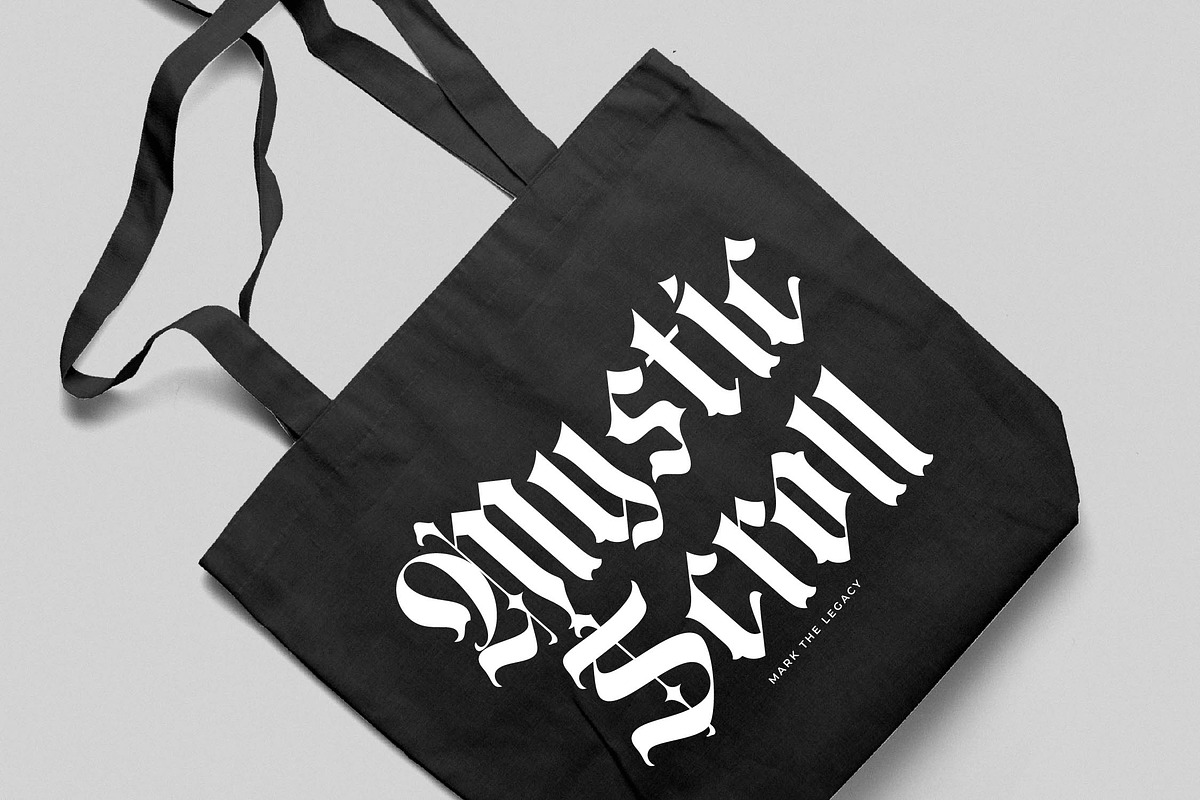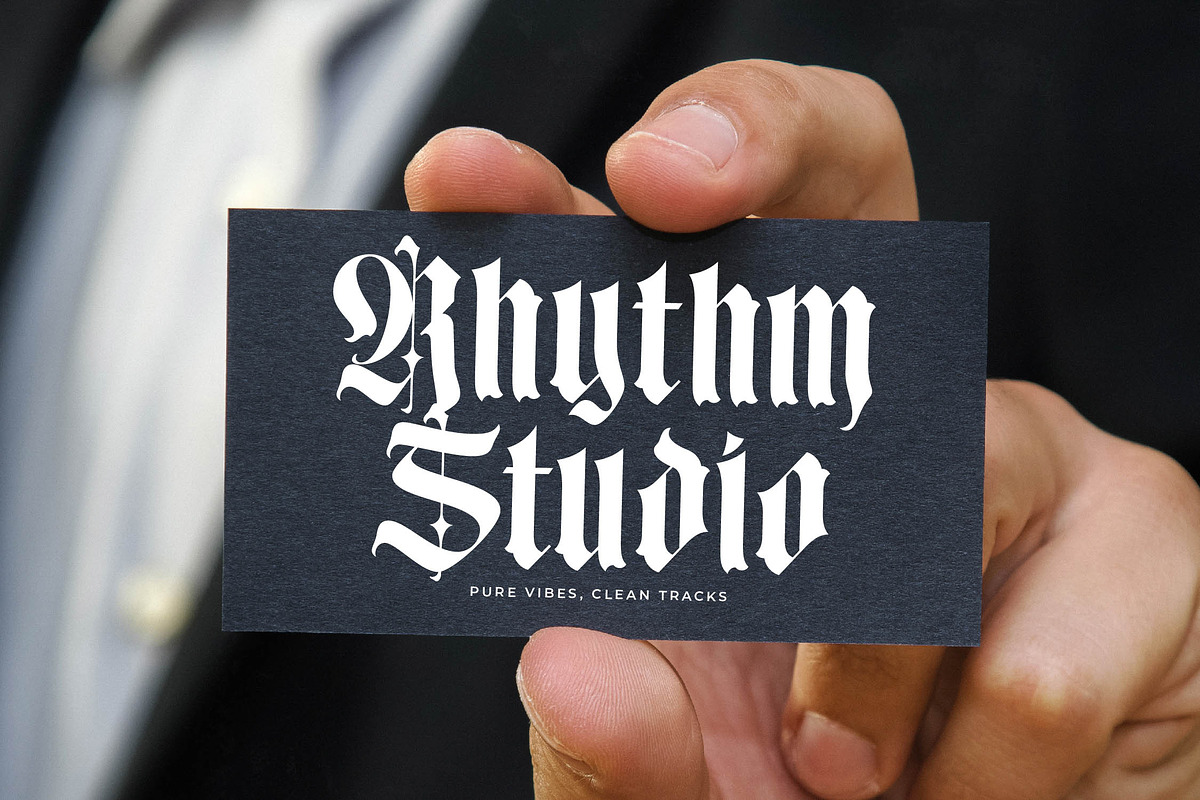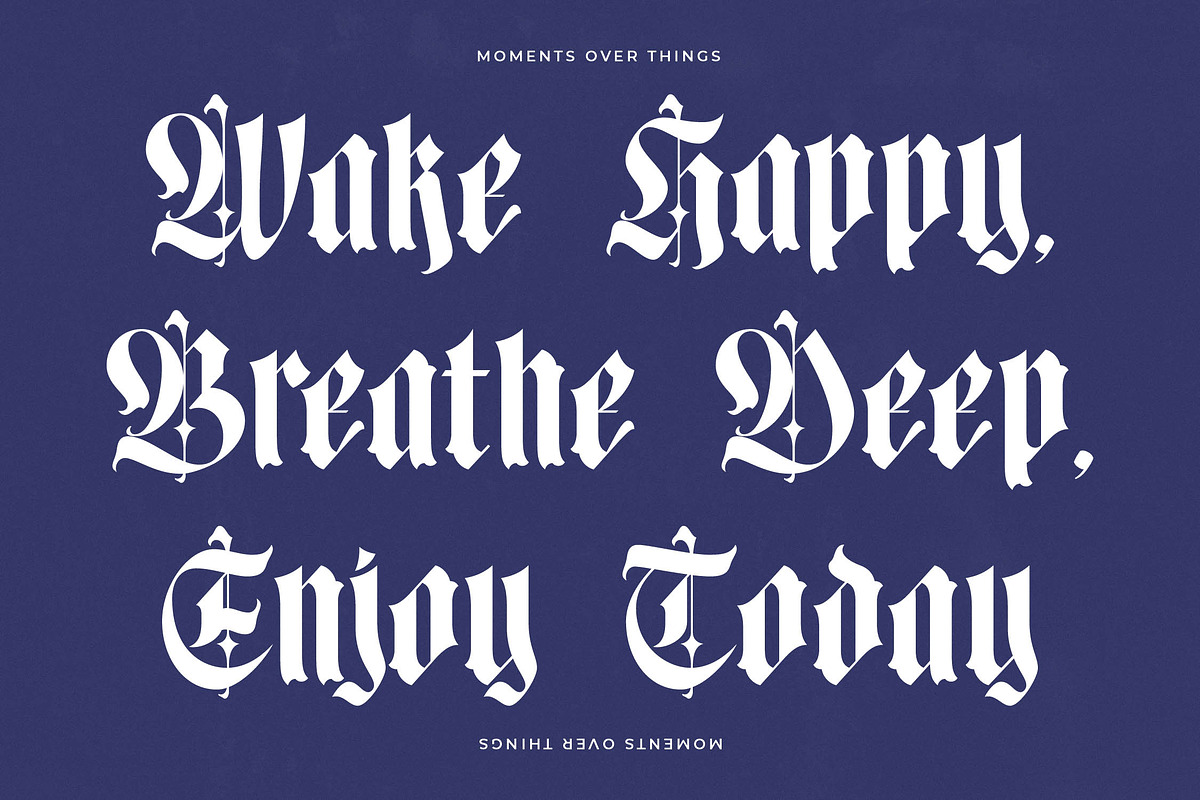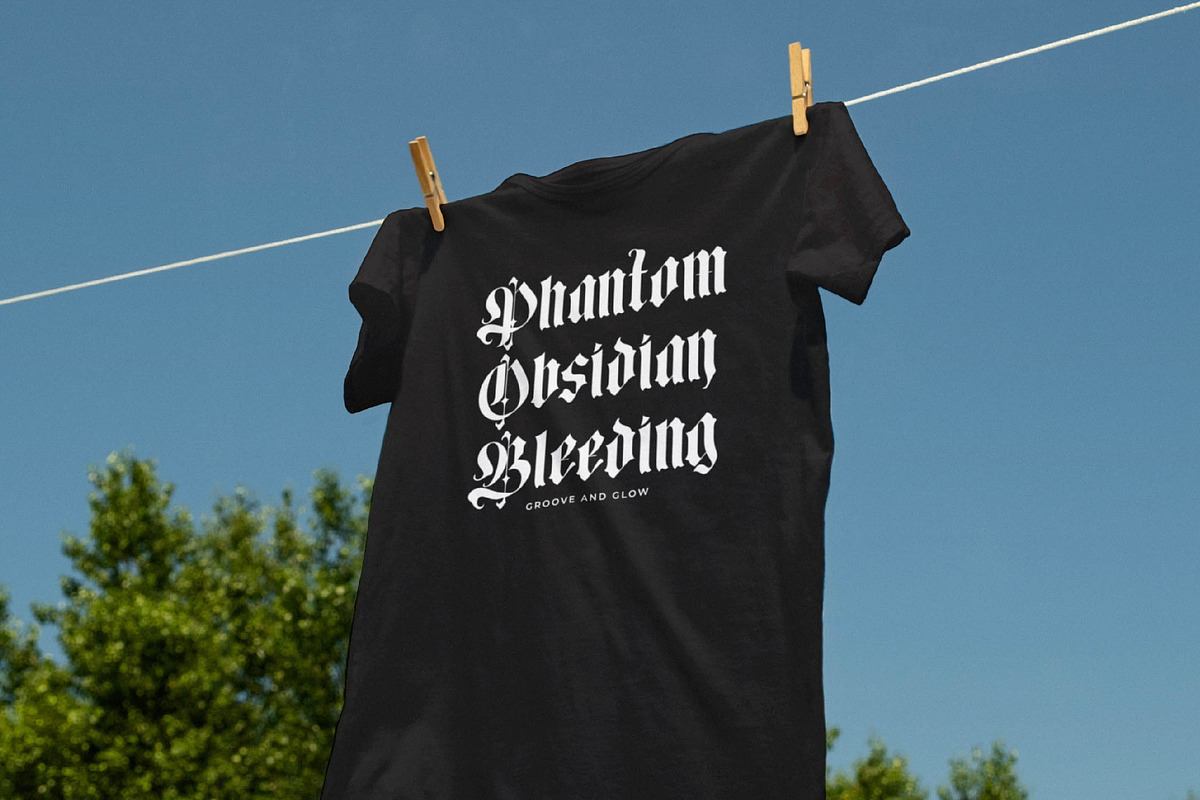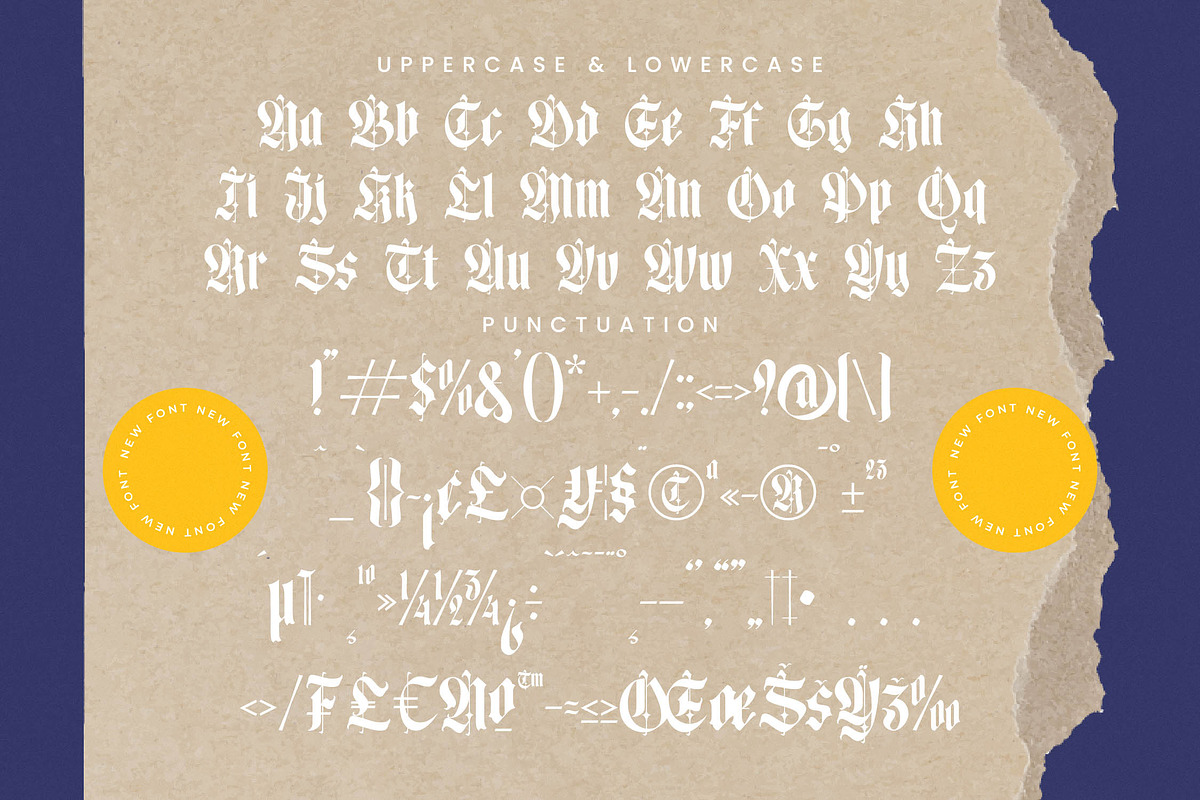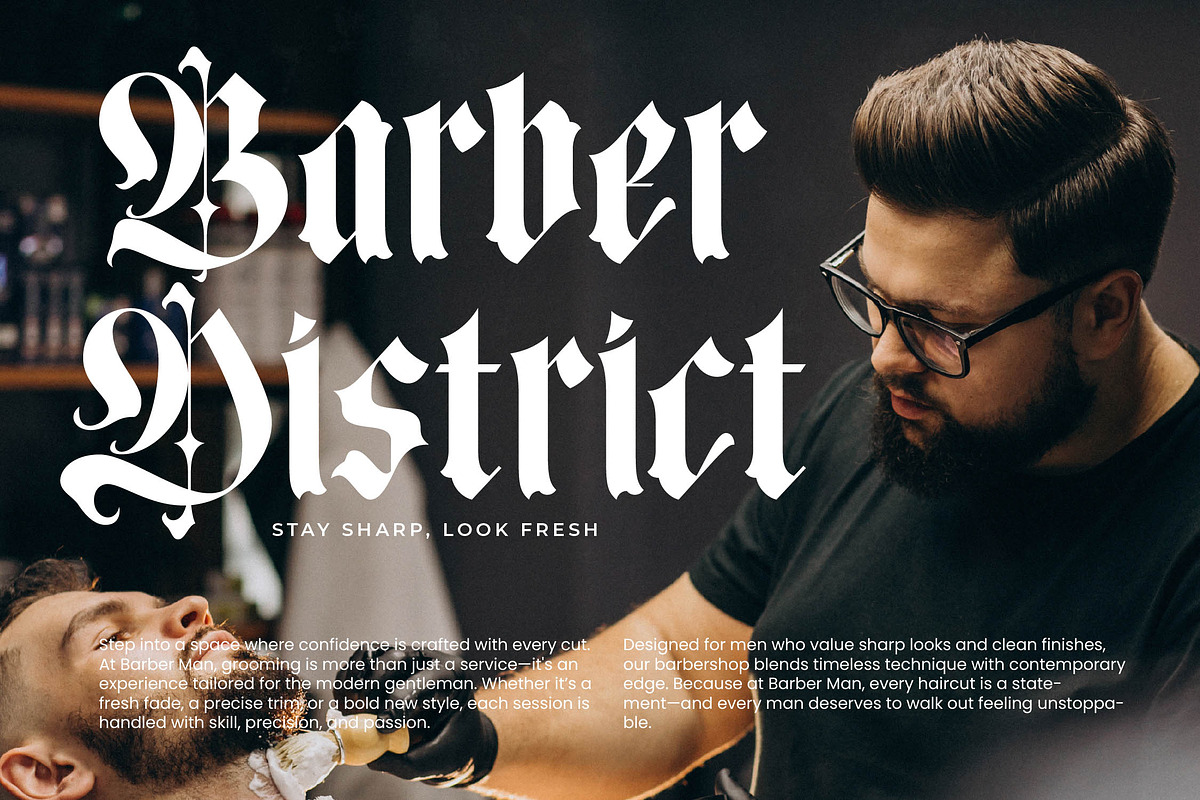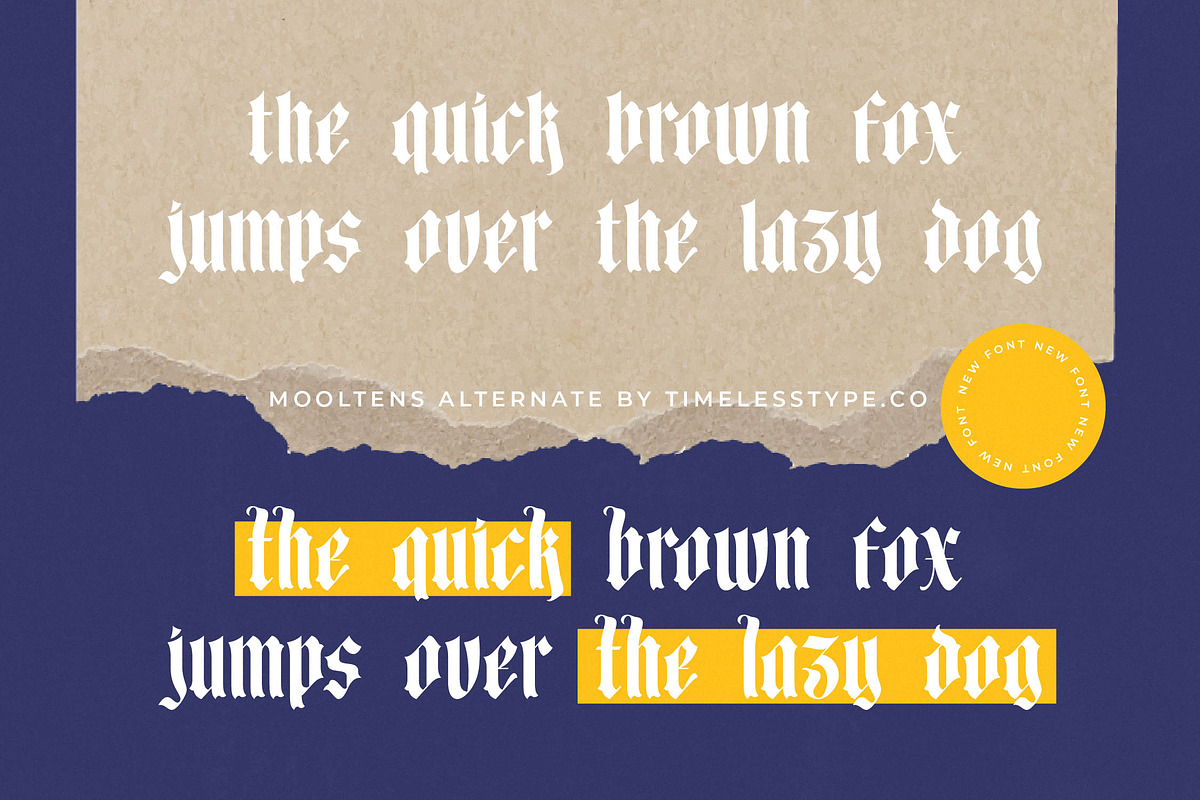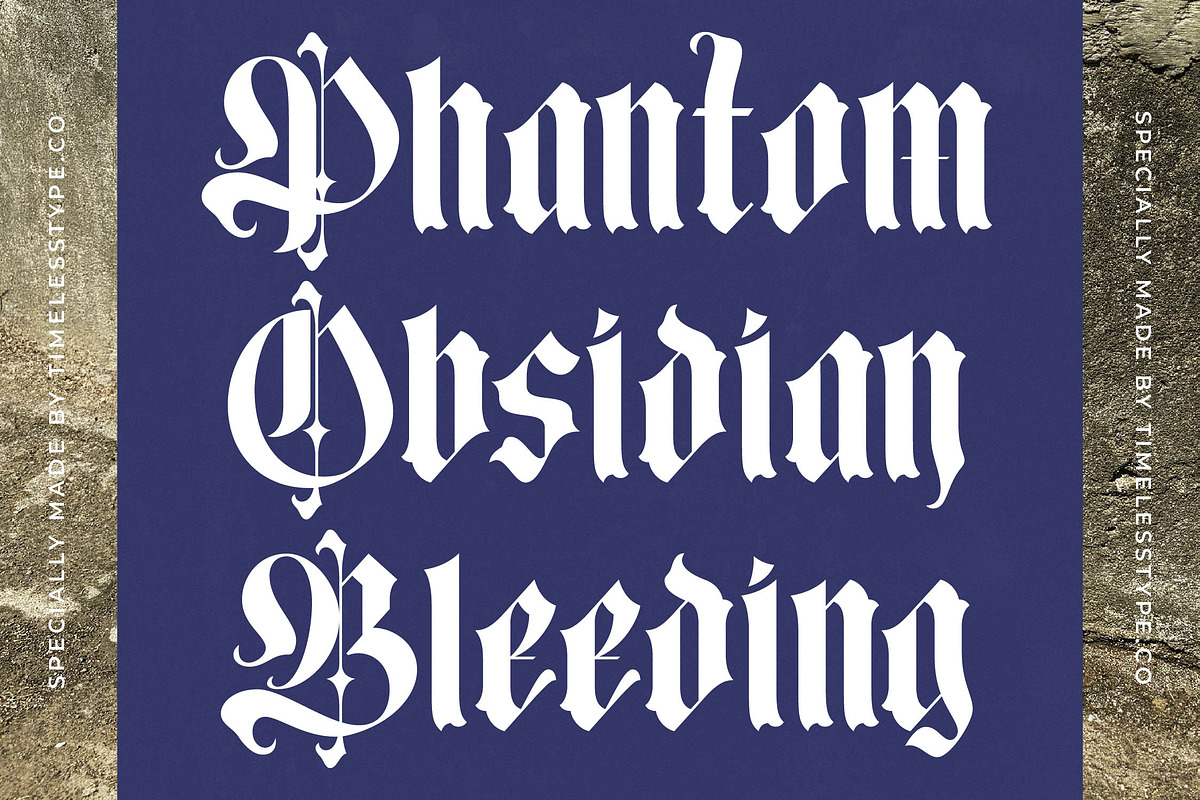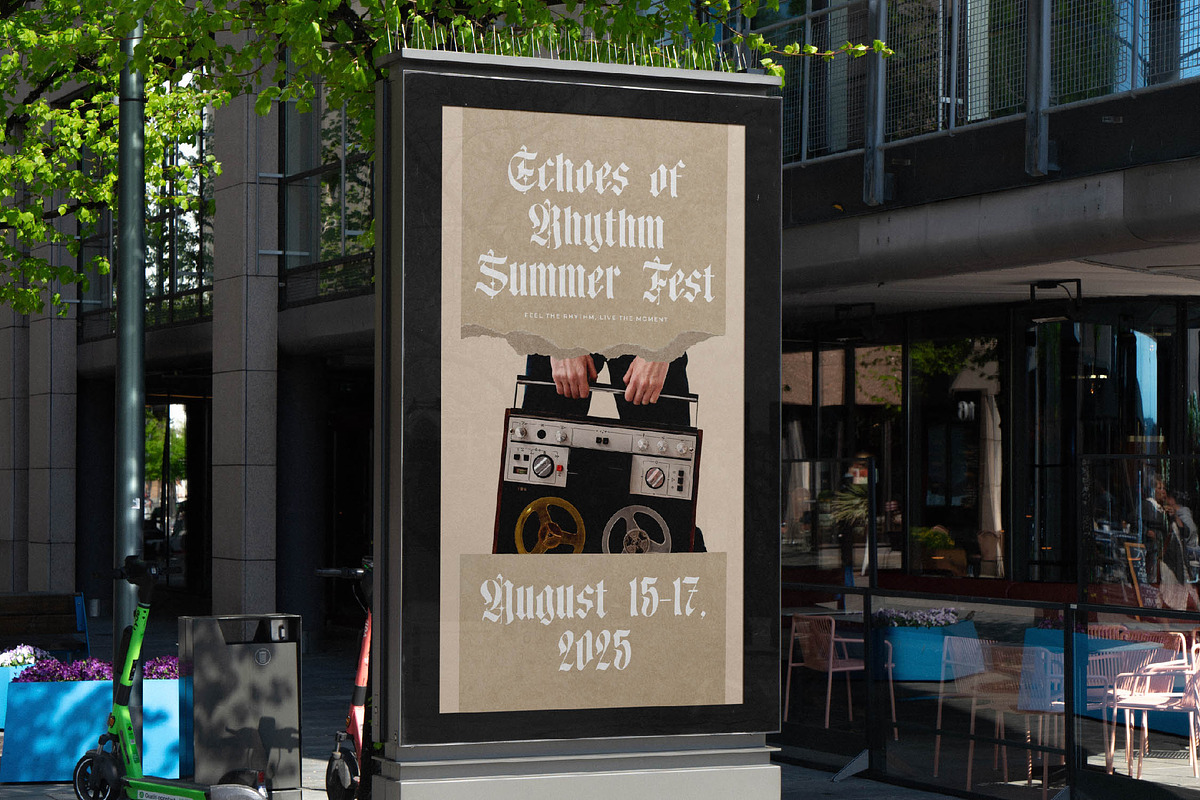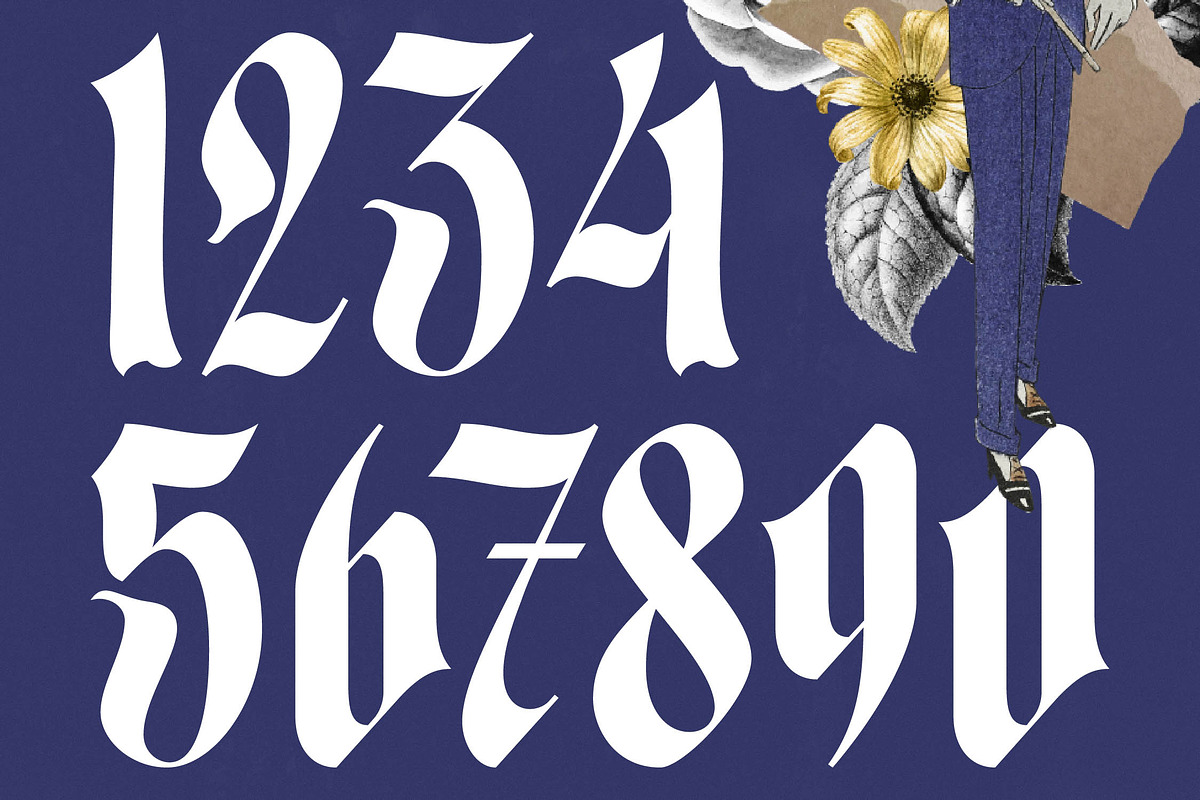
Mooltens Modern Blackletter Font
Mooltens is a mesmerizing dance between ancient gothic tradition and contemporary elegance, designed to command attention with every sharp, intentional stroke. It captures a rebellious spirit wrapped in a cloak of high-end sophistication for the discerning creator.
Inspired by the sharp, dramatic aesthetics of medieval manuscripts but refined through a lens of modern minimalism, this typeface evokes the feeling of a vintage collage. It draws from the world of classic ink work and the raw texture of torn paper, creating a perfect bridge between historical calligraphy and avant-garde art.
This typeface is a powerful modern serif display solution that brings a sense of luxury typography to any project requiring a sharp, high-contrast serif edge. As a versatile editorial font, it provides a massive branding impact by blending sharp decorative angles with a fluid, readable rhythm that stands out in a crowded market.
Perfectly aligned with the current modern serif trend, this font taps into the demand for editorial display fonts that break traditional rules. Designers looking for character-driven typography will find this a timely addition to their toolkit, matching the dark-academia and neo-noir aesthetic dominating today's visual landscape.
Whether you are crafting a standout logo design or building a cohesive identity for boutique branding, this font excels in high-stakes editorial layouts. It is equally at home on luxury packaging, avant-garde wedding invitations, and high-street fashion lookbooks where personality is paramount.
The package includes a comprehensive suite of ligatures and alternates to provide endless creative variety for custom lettering. With extensive multilingual support, swashes, and a full set of international characters, it ensures your message reaches a global audience without losing its distinctive flair.